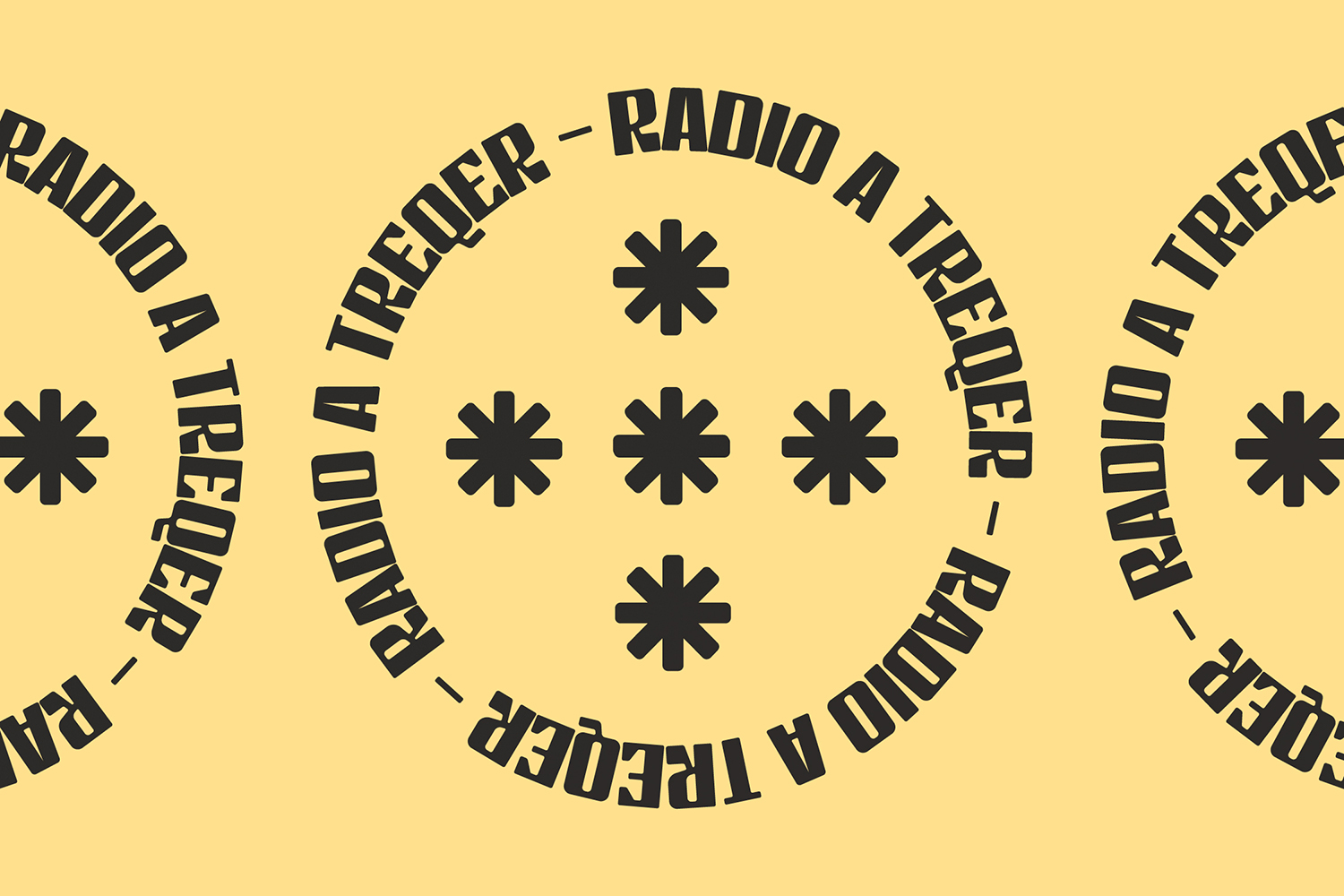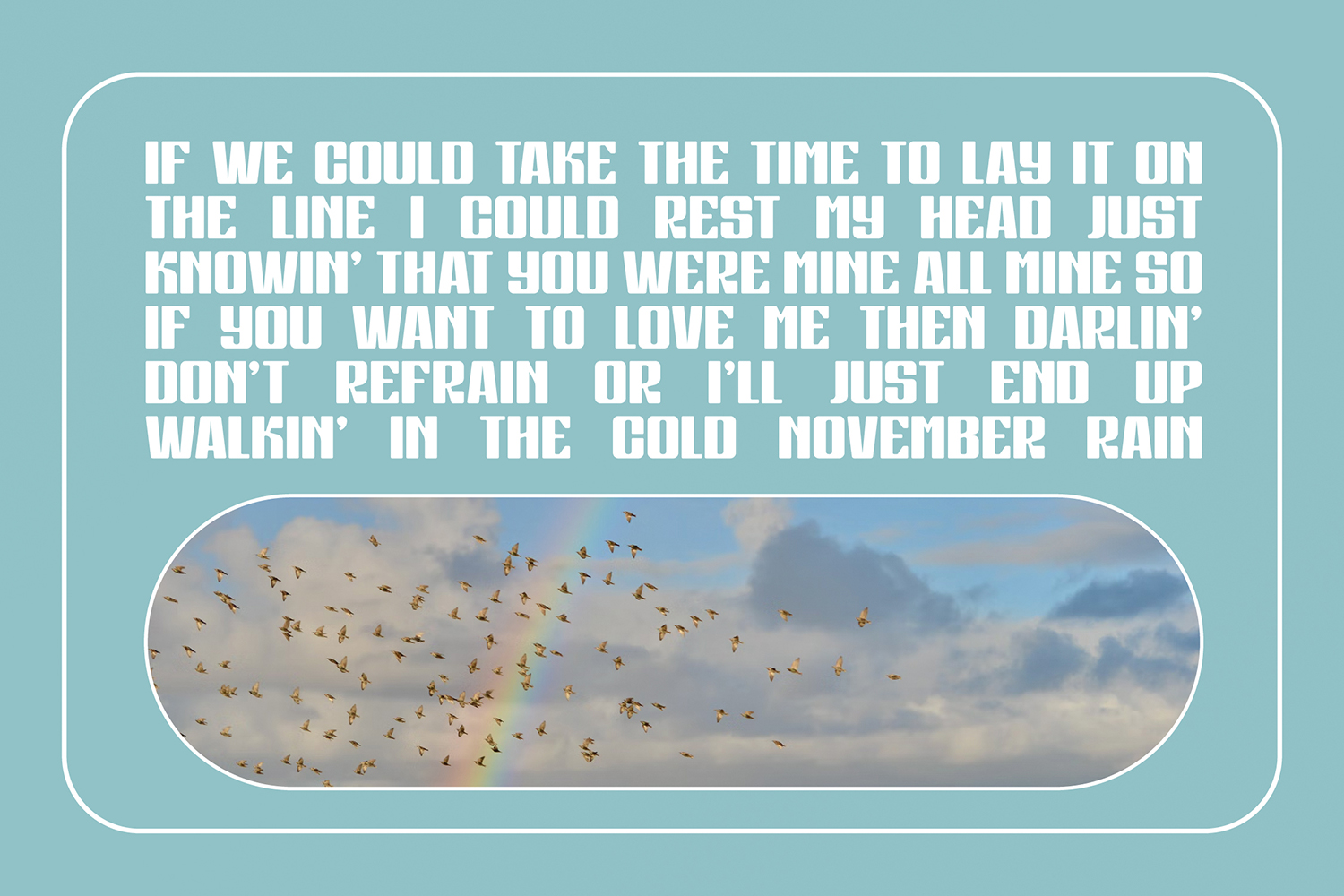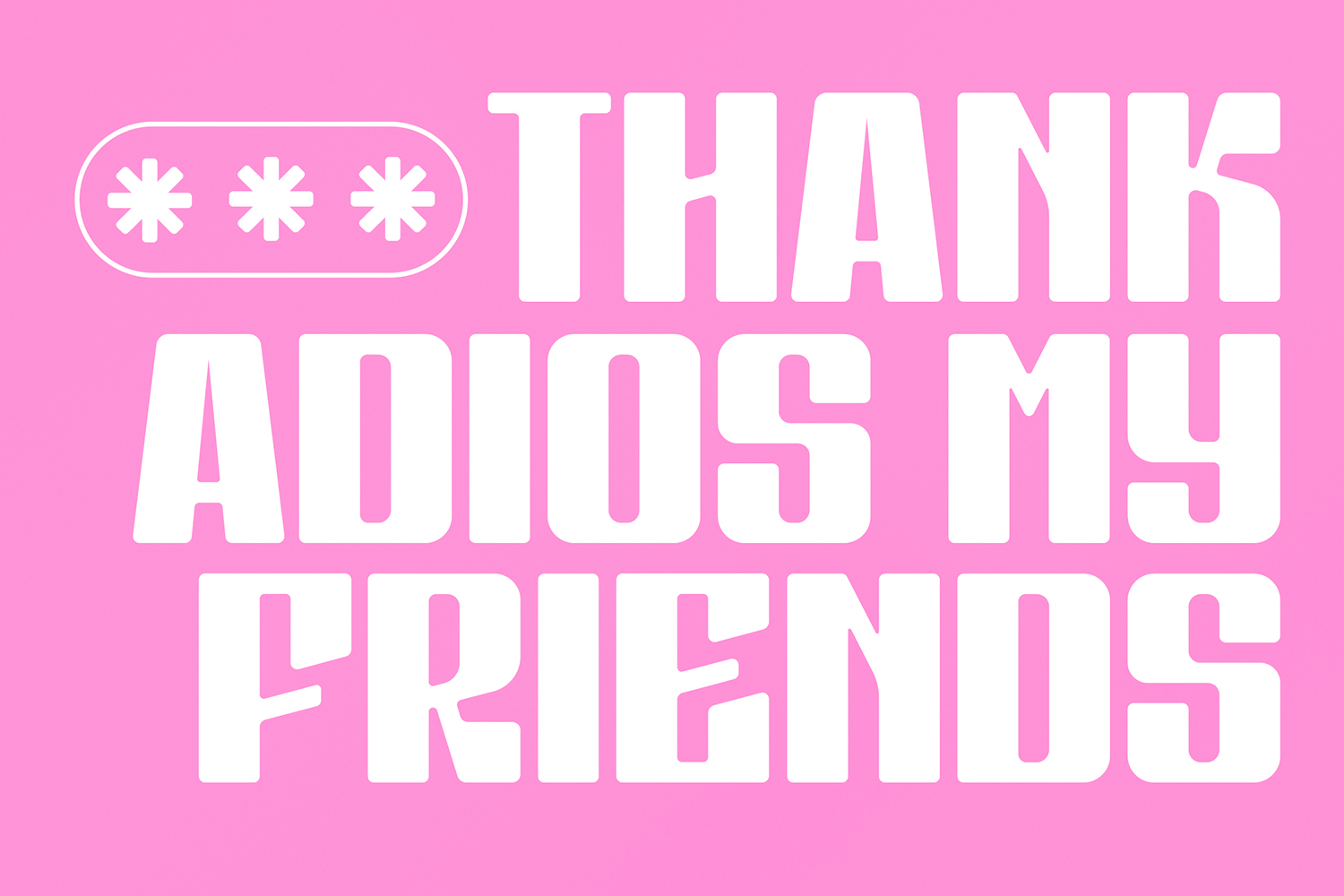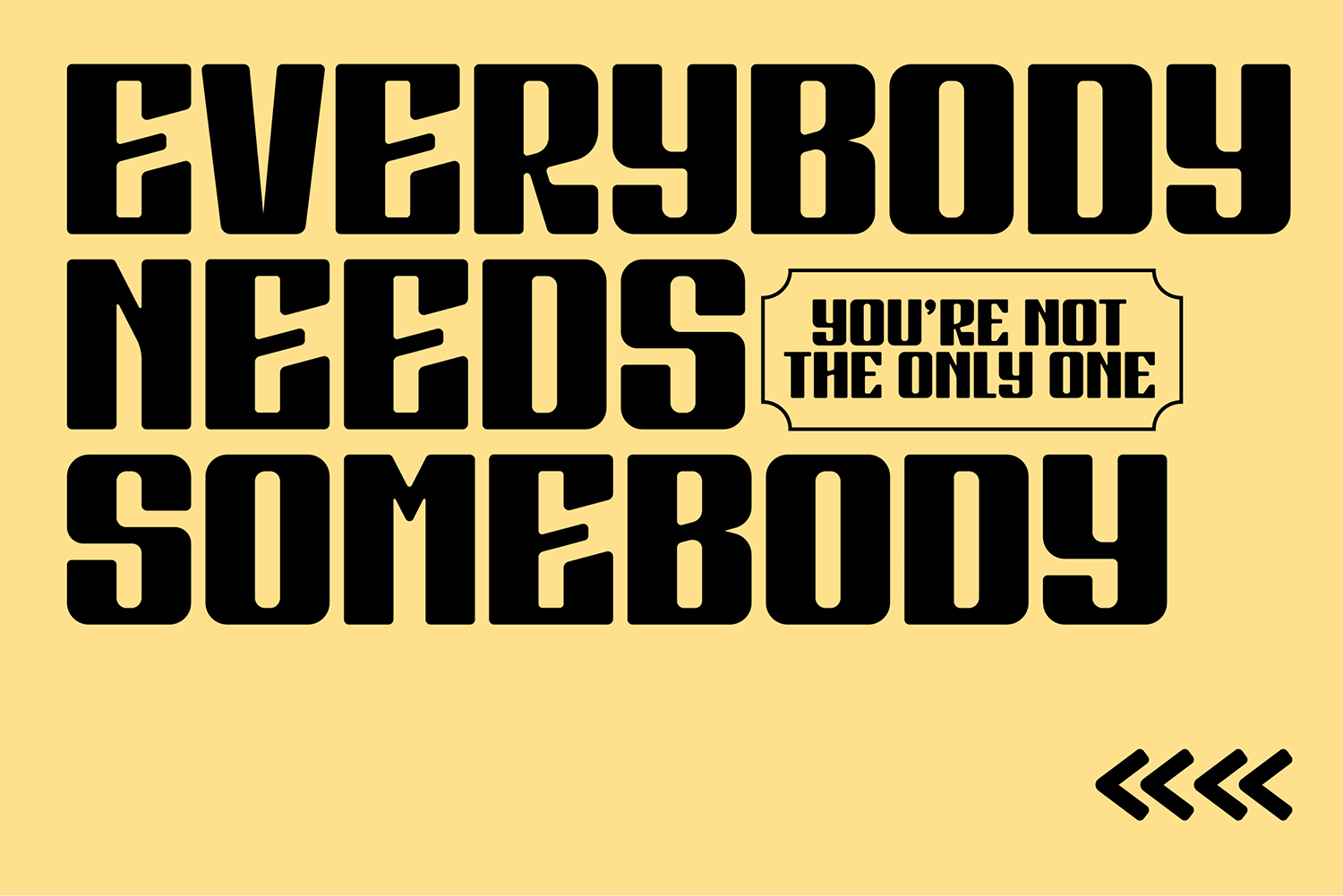
Radio a Treqer Free Font
Introducing Radio a Treqer Free Font, a captivating and free serif font that embodies a perfect blend of modernity and classic elegance. With its unique style and contemporary aesthetic, this typeface adds a touch of sophistication to any design. Ideal for creating luxurious and stylish logos, book or movie titles, fashion brands, magazines, clothing items, lettering, quotes, and much more. Unlock the endless possibilities of Radio and let it elevate your creative projects to new heights. Discover the versatility and allure of this font and make a lasting impression with every use. This free typeface was designed by a talented Storytype Studio. If you like it don’t forget to check out the full version.